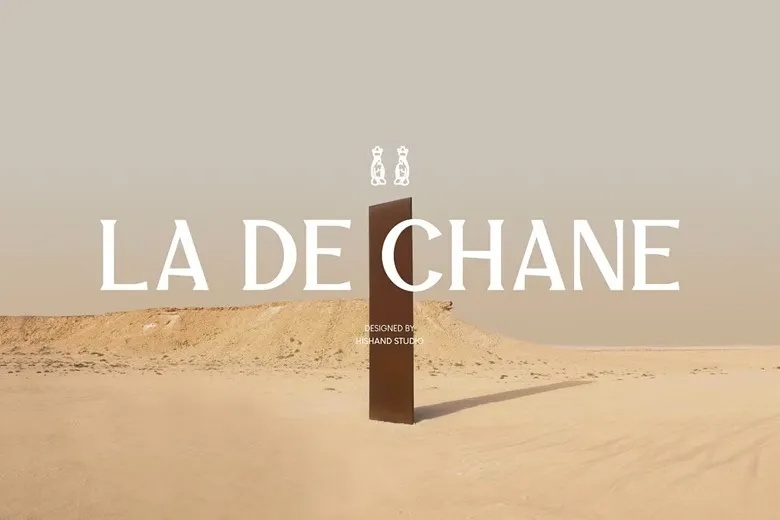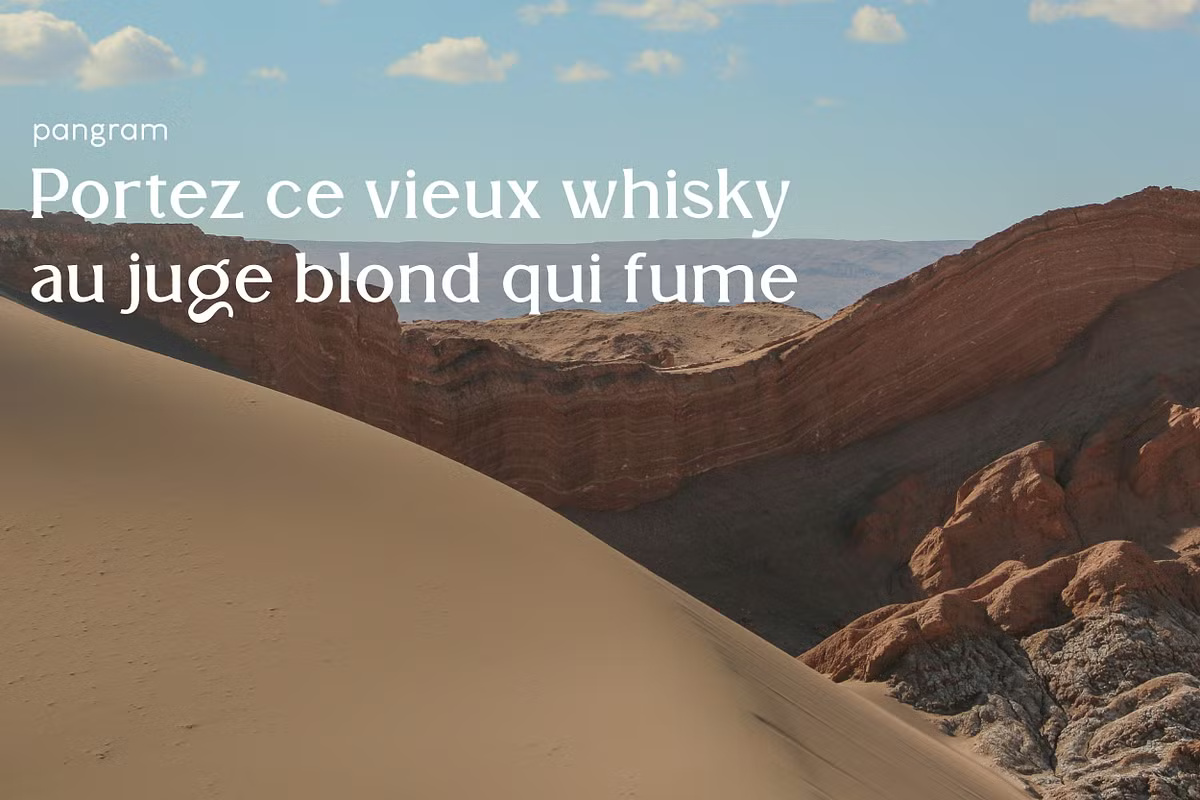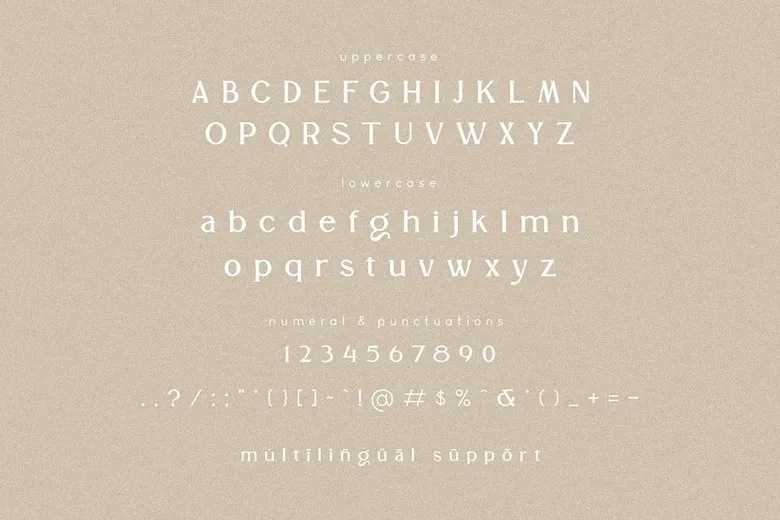
La De Chane is a refined serif typeface that blends classic elegance with a modern, chic sensibility. With its high contrast, delicate lines, and exquisitely sharp serifs, La De Chane brings an air of sophistication and confidence to any design it graces.
Perfectly suited for fashion branding, luxury logos, editorial headlines, and upscale packaging, this font turns heads without raising its voice. Every letterform is crafted to deliver headline-worthy impact while maintaining the grace and finesse ideal for logotype design.
La De Chane Serif Font